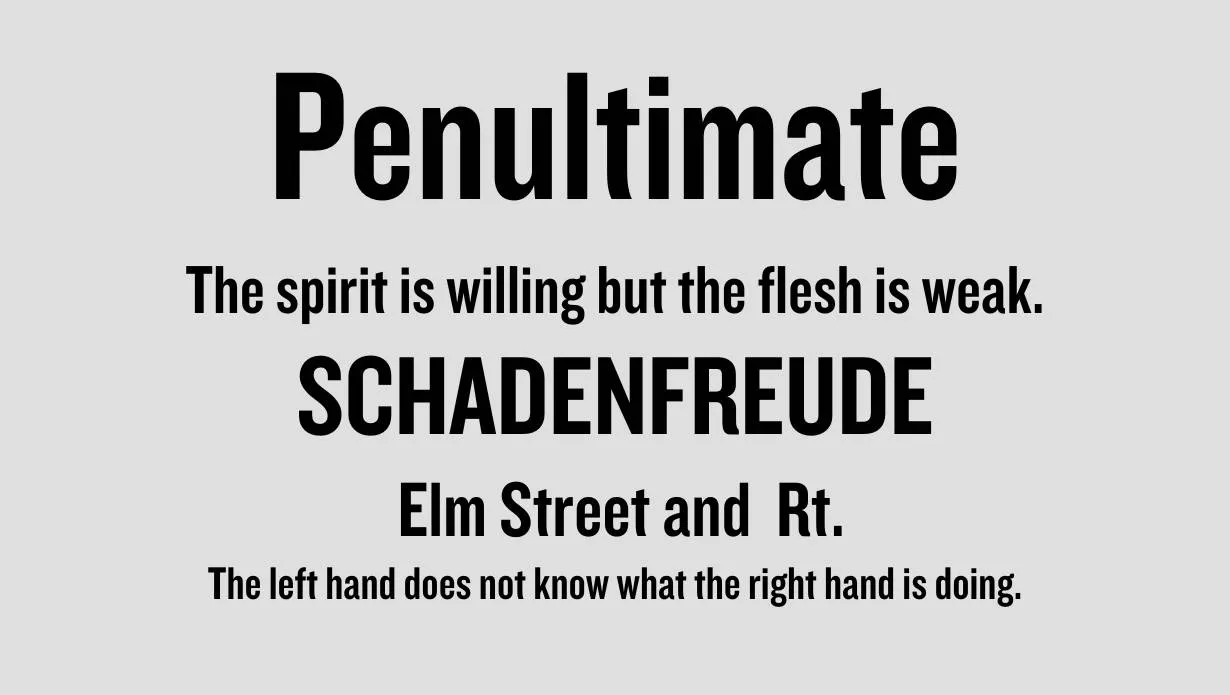
Knockout Liteweight is a font that combines boldness with a lighter touch. With its sturdy letterforms and reduced weight, this font is often used when you want to convey strength without overwhelming the design.
It’s a versatile choice for headlines, banners, or any project that requires a strong and impactful typographic presence without sacrificing readability. Knockout Liteweight’s balance of boldness and subtlety makes it an effective choice for a variety of design applications.
View of Knockout Liteweight Font
| Designer | Jonathan Hoefler |